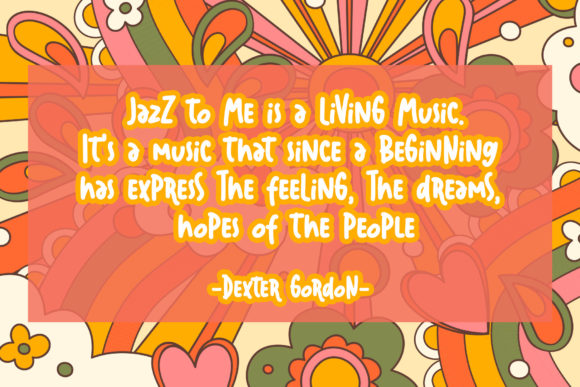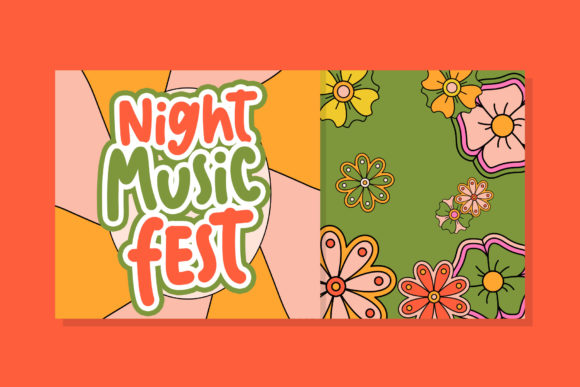
Crazy Jazzy Font
db-ku.com - Script & Handwritten -- Crazy Jazzy is a fun, quirky and casual handwritten font. No matter the topic, this font will be an incredible asset to your fonts’ library, as it has the potential to elevate any creation.